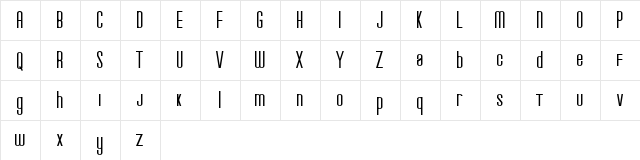
wavecraft Regular
| Foundry | Gumacreative |
| Designer | Gumacreative |
Design Context for wavecraft Typeface
wavecraft offers clean, dependable letterforms without strong stylistic allegiance, making it a practical choice for designers who need flexibility.